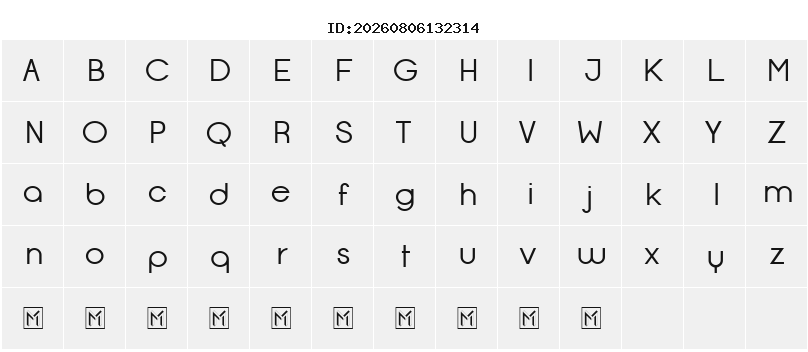
Opificio Preview
• Font Name: Opificio
• Designer: Andrea Cerboneschi for Monocromo
• Manufacturer: Monocromo s.n.c.
About Opificio.ttf
Opificio.ttf is a modern, elegant sans-serif font designed for ultimate readability and visual harmony. Perfect for branding, headlines, web design, and print materials.